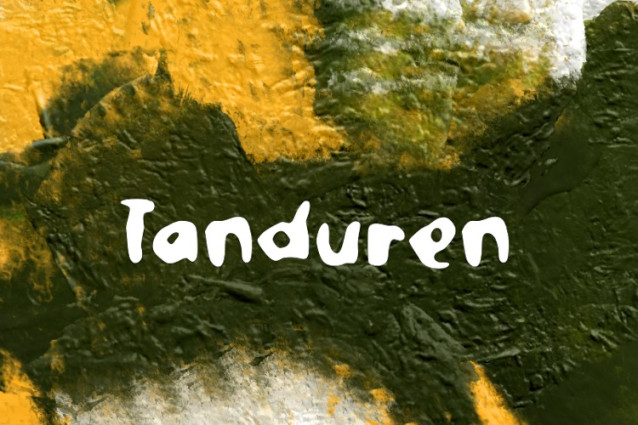
Tanduren Font
Tanduren Font is a chunky, comic, and cartoon display font. With its neat and joyful personality, this font will enhance any project you wish to create!